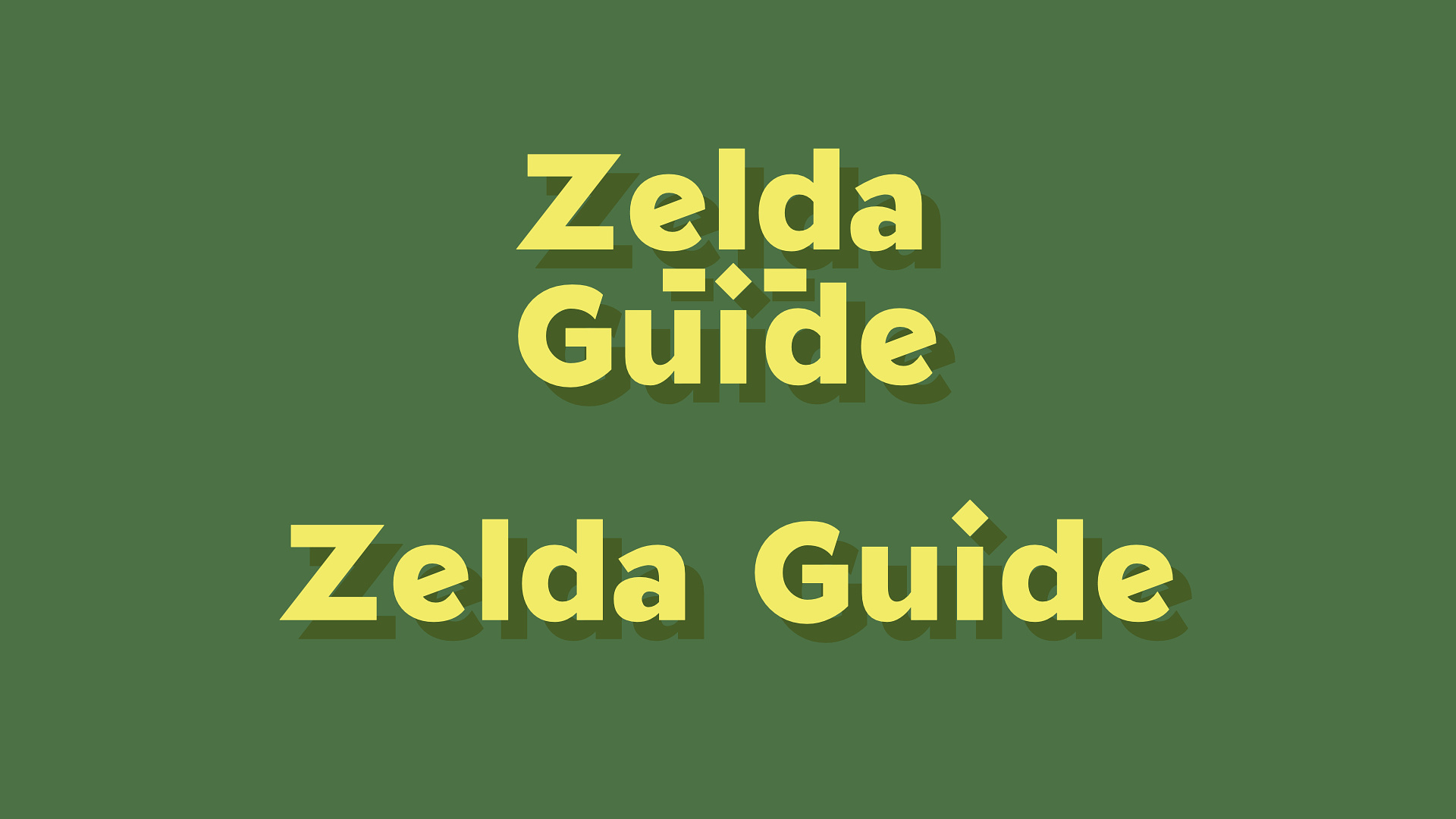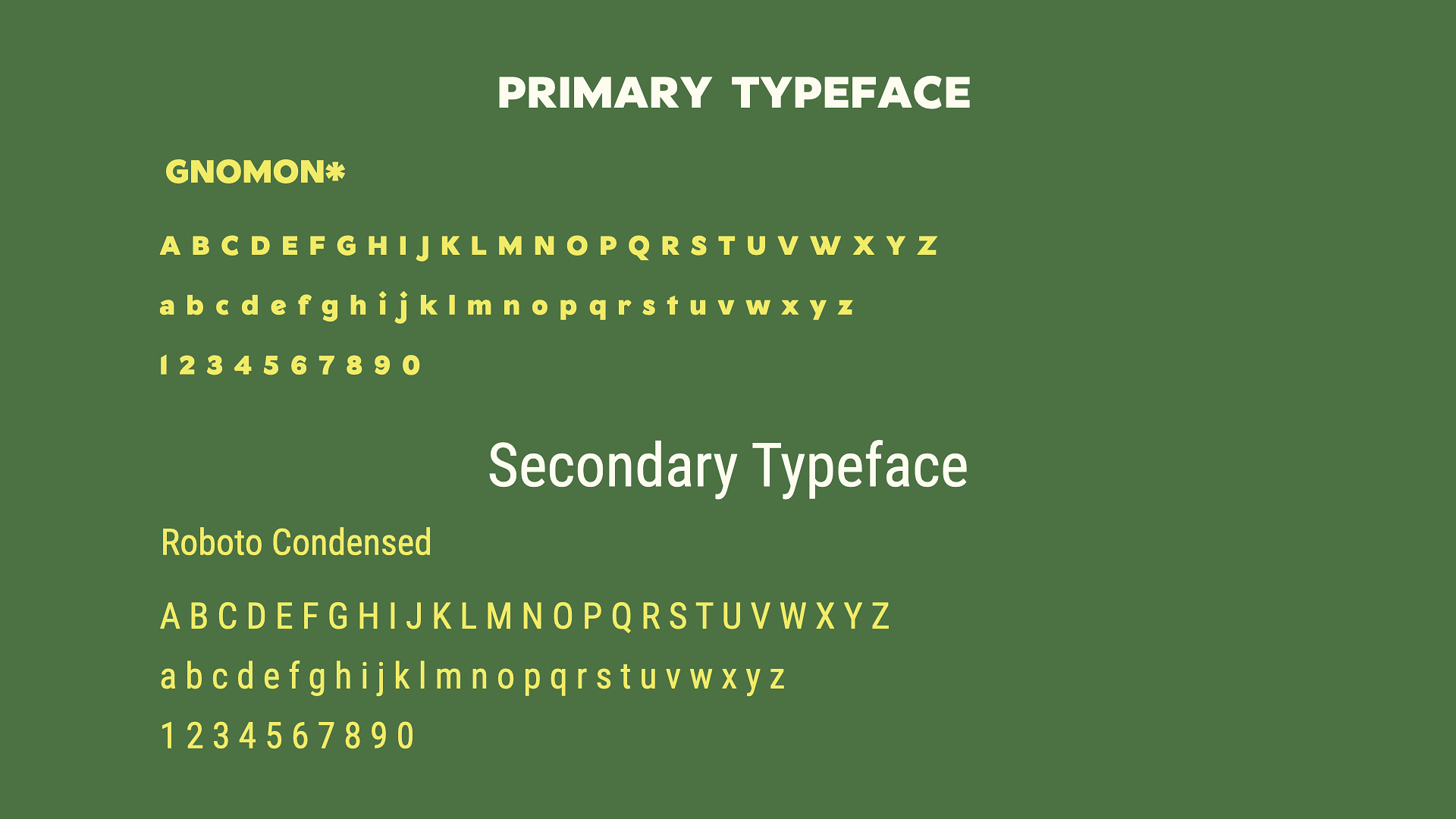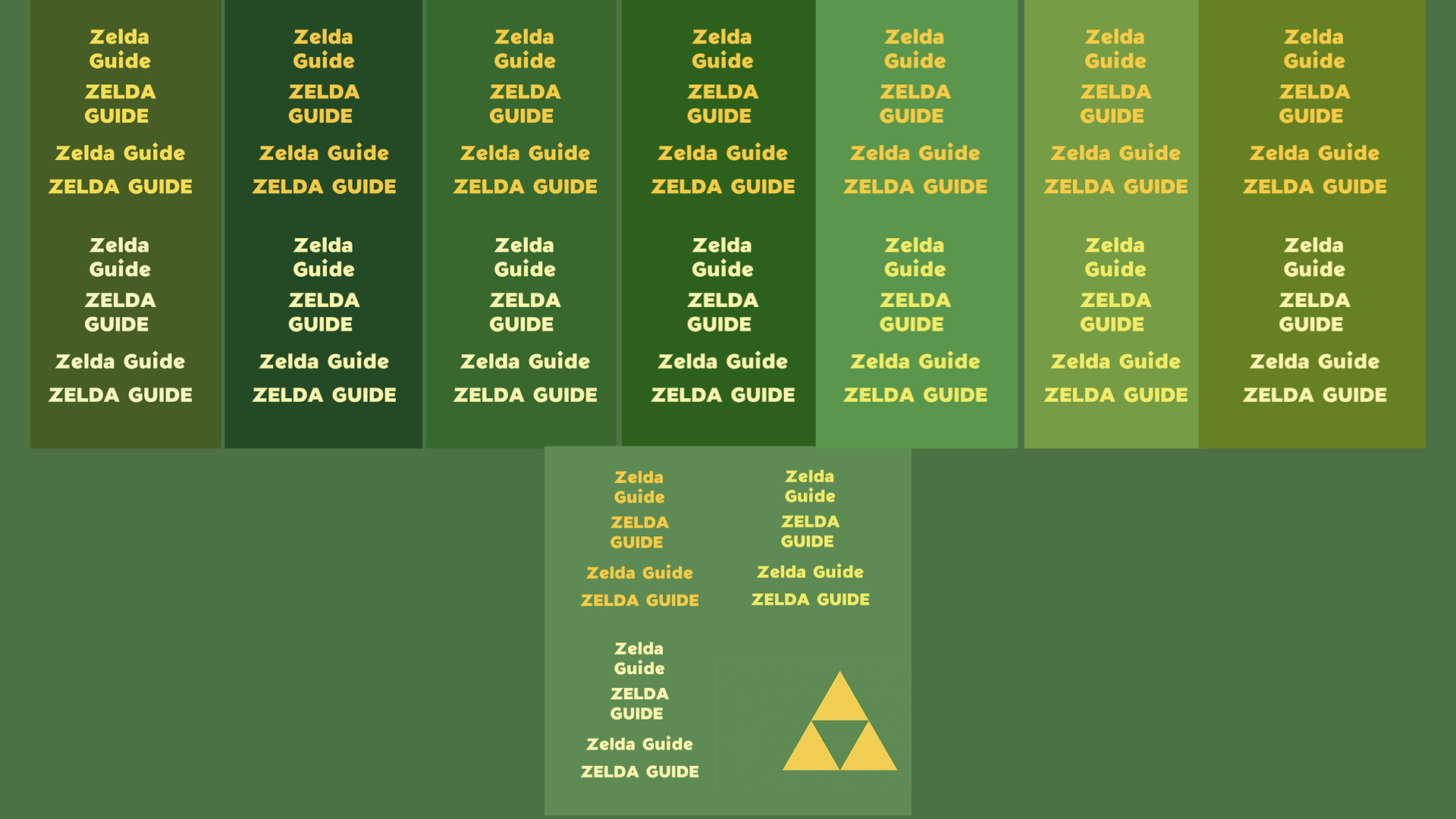
Logo Concept 02- Zelda Guide Logo
The Logo Concepts
Zelda Guide Final Concept
Logo Concept Series
I decided to expand my skills in icon mark and typography to broaden my design range, especially for logo design. While exploring this journey, I came across a daily logo challenge from Logo Core and decided to take it on. So, I will showcase the results of my logo practice based on the provided briefs.
Think of this post as a presentation of the initial concept to an imaginary client. It's my way of discussing my thought process and my design choices before exchanging feedback and revisions.
Please keep in mind that creating a polished logo design typically requires more than just a few days. Therefore, consider everything from this challenge as a rough draft that will need further feedback from clients for refinement to truly shine.
While these designs may not be fully refined, I believe they will offer us a general idea of the concept.
That being said, let's kick things off with the brief from the challenge:
The Brief from LogoCore
I represent ZeldaGuide.com--a small publisher of videos, articles, and community events around Legend of Zelda games.
Honestly, we are having issues deciding on a set of visuals for the site. We're often switching our header image at random, our logo has no relation to the games we produce content for, and visitors often confuse our site with similar blogs.
We need a visual identity that represents our website clearly.
Firstly, the new logo should avoid using the stereotypical Legend of Zelda typeface. We want to forge our own identity without being too dependent on another established brand. On the same topic, I want to personally avoid any copyright issues with Nintendo.
If we decide to create a symbol for the primary logo design, I want it to use similar color palettes, stylistic references, and visual language from the Zelda franchise.
We're also interested in starting a t-shirt shop to diversify our revenue. Your logo would be the first design that we create merchandise with! This will force the final logo to use a maximum of three colors in order to produce merchandise with a screen-printing process.
Brief Interpretation
The brief is somewhat challenging due to specific expectations for the visual identity stemming from a website dedicated to a well-established game franchise. At the same time, diverge from these expectations enough to forge a distinct path and establish a new visual identity. Additionally, this new logo and visual identity must be striking enough for merchandise while also being accessible and scalability for website usage.
The best approach I could think of is to adopt a distinctly different personality for the wordmark, aiming to evoke a sense of fun and exploration. Then, by incorporating visual elements and symbolism from the franchise, we can ensure that people recognize the association with Zelda without any copyright issues.
I first need to familiarize myself with Zelda’s visual language before moving forward with the project.
Researching
The Original Zelda logos
I began researching to grasp the visual identity of the Zelda world. As I only ever played Zelda: Breath of the Wild for about 30 minutes before giving up, LOL!
I started with the Zelda logos. The wordmark has been consistently used throughout the franchise. Since the client specifically requested not to use a similar style, I was thinking of going in a totally different direction, aiming for fun instead of the historical style like the original version. The only element I’d borrow would be the embellishment inside the “Z,” which feels perfect to use as a compass needle. There was one logo version with the compass, so I thought aligning both of them together might be worth exploring.
Merchandise with Zelda's symbols and visual elements
Next, I examine the symbols commonly used in the games to better understand Zelda’s visual style. Many geometric shapes, wings, and swords are present. Therefore, we should aim to emulate these themes in this logo concept.
Compass designs used in Zelda's games
Lastly, I specifically searched for a compass designed for the games because I wanted to use it as a symbol to guide users through tips and tricks on the "Zelda Guide" website. A pocket compass design certainly felt promising.
Keeping all these images, colors, and styles in mind, I began conceptualizing.
Conceptualizing
My Sketches for Zelda Guide Logo Concepts
During the conceptualization phase, I began shaping and exploring various concepts based on my research to identify unique characteristics that could be integrated into the Zelda Guide logo.
One promising idea emerged during the research process: using a compass for the logo mark. Given the name 'Zelda Guide,' a compass perfectly symbolizes 'guidance.' Initially, I considered shaping the pocket compass into a "G"—the initial for "Guide" in Zelda Guide— and having a “Z” as a part of compass needle but it disrupted the symmetry, so I decided against it.
While analyzing various Zelda wordmarks, I realized that the embellishment in the 'Z' could be transformed into a compass icon. With enough creativity, it could represent both a compass and the letter "Z" for Zelda. I then experimented with various ways to incorporate all my ideas while steering clear of the original wordmark during my brainstorming session.
Developing the wordmark involved a trial-and-error approach to balance aesthetics and functionality. I debated whether to use all caps or title case for "Zelda Guide." Eventually, I conceived the idea of transforming the "L" in Zelda and the "I" in Guide into a sword—a common symbol in Zelda logos—making it the focal point of the wordmark.
Ultimately, however, the compass was chosen as the central element to better represent the theme of a guidance website.
Typography
Zelda Guide with Gnomon* font
The next step was to digitize the concept, starting with the typeface. I aimed for a slightly wider style to keep the words "Zelda" and "Guide" proportionate so I could incorporate my compass/sword idea into the wordmark.
My Typography Choice, Gnomon* and Roboto Condensed
The GNOMON* font emerged as an ideal choice—fun and friendly, and distinct from the original Zelda typeface. Uniquely, it includes a foreground font that allows you to create a drop shadow effect with ease. I found this feature perfect for creating assets for a gaming website like this.
The secondary typeface is Roboto Condensed, as I envisioned the Zelda Guide to be an information-dense website. A reliable, highly readable, and compact font style would
help readers access the information they seek more efficiently.
Color Palette
Color Experimentation Process
Now, onto the color experimentation. Numerous shades of green and yellow—the most distinct combination for Zelda—were tested, balancing between dark and bright tones to ensure good color accessibility and visual contrast on the website. After several attempts, I settled on a complementary combination.
My proposed color palette: using Fern Green and Maize colors as primary colors, and Ivory, Persimmon, and Garnet for complementary colors
After settling on the primary colors, I explored the color scheme that could be used for the entire website. My proposed color palette: using Fern Green and Maize colors as primary colors, and Ivory, Persimmon, and Garnet for complementary colors
Typography and Color Mockup
I also created a simple mockup demonstrating how to implement the color scheme.
Logo Mark
My first and a bit improved icon mark
My initial decision was to prioritize combining a compass and the letter Z to emphasize the guiding nature of the website. However, crafting the logo mark that effectively represented both elements ⁠presented its own set of challenges.
I struggled to make it resemble both a compass and the letter Z simultaneously, causing both messages to become lost in translation. The concept of a Z-shaped and compass was not immediately clear and lacked a defined hierarchy.
The color treatment for my dropped icon mark
I decided to alter my approach, creating Z in a negative space to establish a visual hierarchy centered around Z as a focal point. Unfortunately, it no longer resembled Zelda's visual aesthetic. I still wasn’t satisfied with this concept and would like to explore another direction.
The final concept for Zelda Guide's icon
I decided to remove the "Z" from the icon and focus on the sword symbol, revisiting my original idea. I incorporated the sword into the wordmark. For the icon, I placed a pocket compass around the sword, positioning the sword as the compass needle pointing north. This design better connects Zelda Guide with the Zelda community by borrowing visual language from the official logo.
Final Words
Zelda Guide Final Concept
Although the current design is still a work in progress, it showcases a strong concept with the potential to evolve into a memorable brand identity. It deviates from Zelda’s typeface while incorporating familiar Zelda elements, allowing people to easily identify and associate ZeldaGuide.com with Zelda.
Both the wordmark and the logomark possess visually appealing and memorable qualities, transforming them into marketable merchandise that fans would be proud to wear. I believe this logo concept lays a solid foundation, ready for refinement and future development.